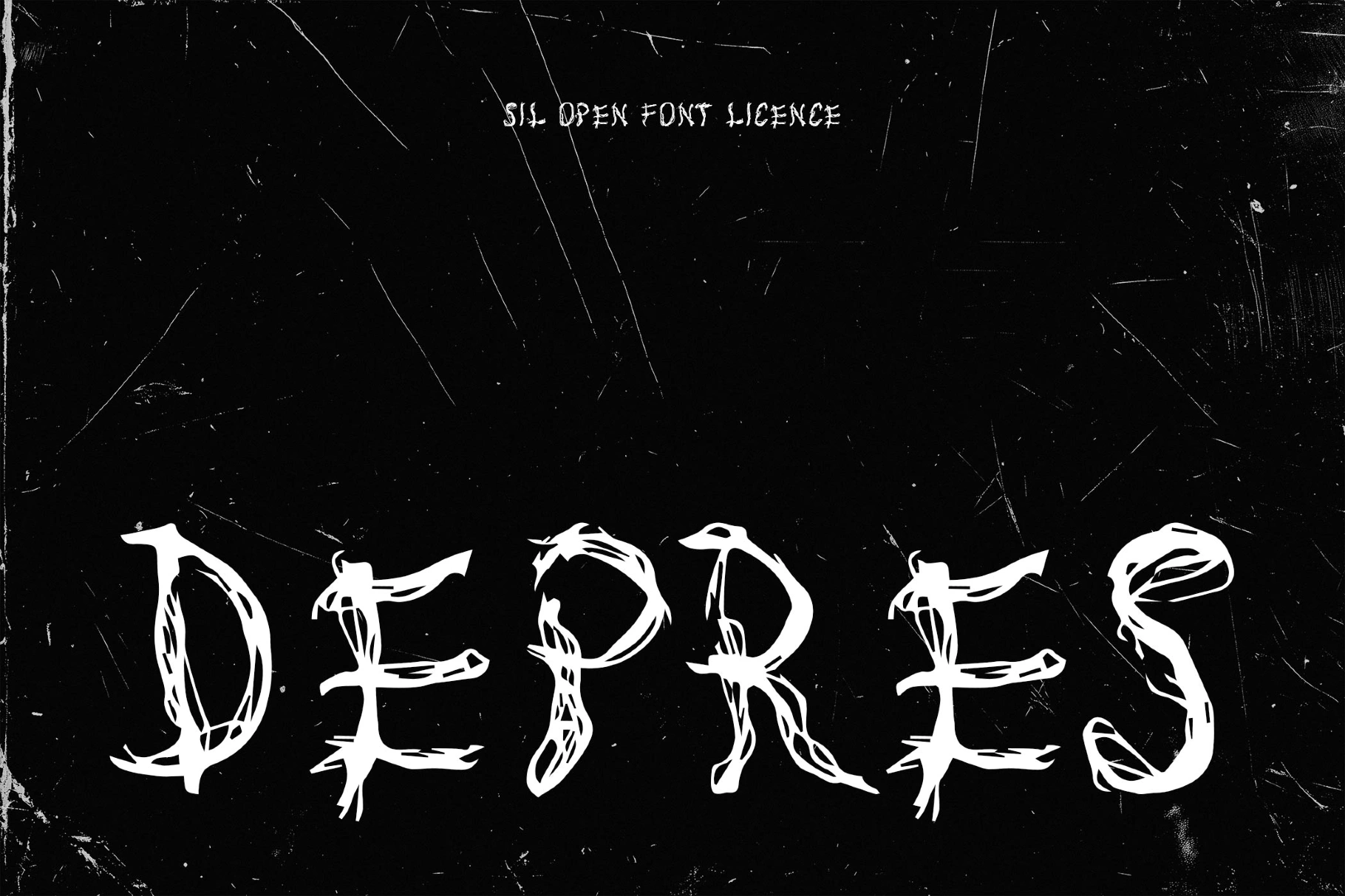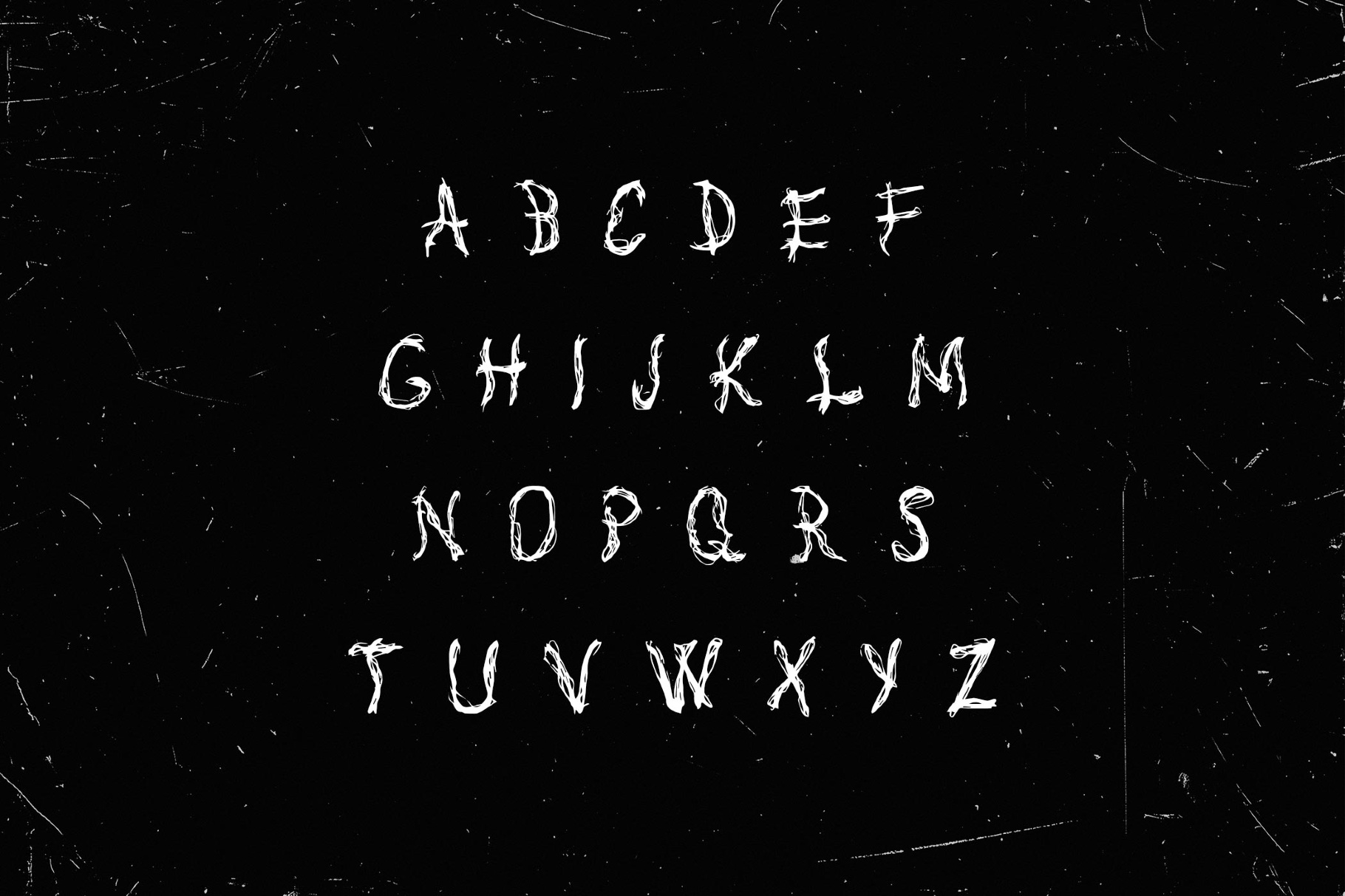
Depres Font
Depres
Depres is a chaotic hand-drawn horror display typeface defined by jagged, irregular strokes and a scribbled texture. Each letter is almost frantic, with uneven lines and sharp edges that create a distinctly dark and expressive presence. Depres works well in underground posters, album covers, edgy branding, and experimental typography.